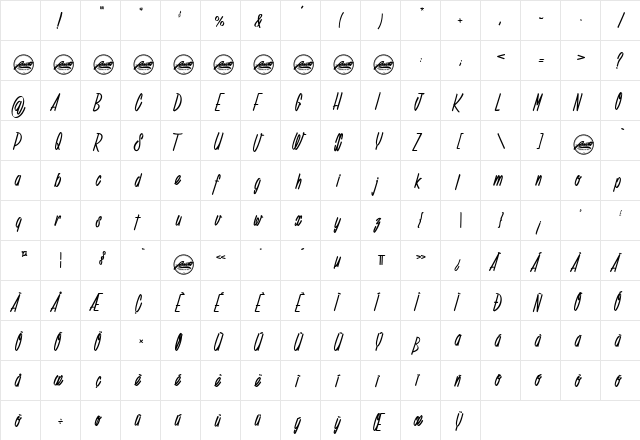
Complete Deadline Countdown_PersonalUseOnly Regular glyph index. Displaying only characters natively supported by Deadline Countdown_PersonalUseOnly Regular font.
Deadline Countdown_PersonalUseOnly is a composed and adaptable typeface that performs quietly and consistently across a wide range of design contexts.